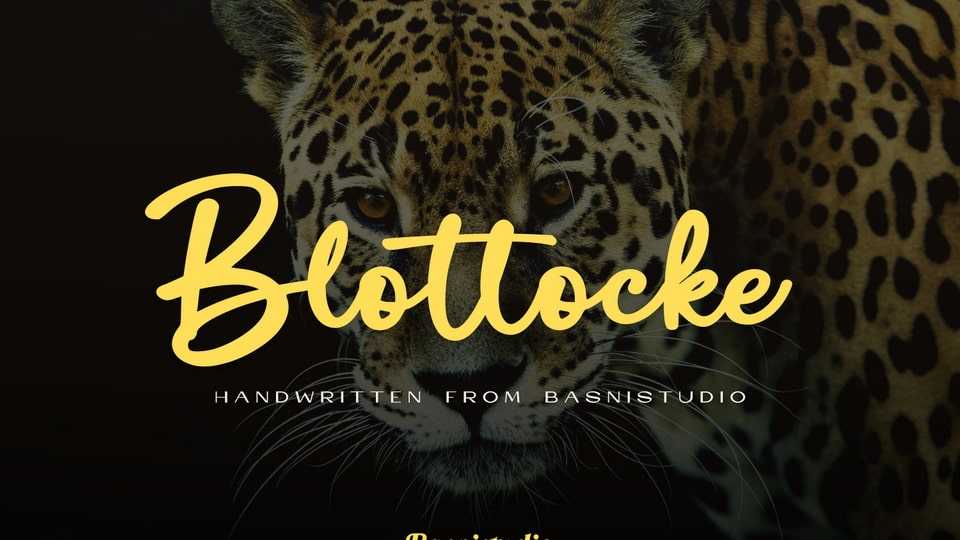
Download Blottocke font, a handwritten typeface that adds a elegant, versatile touch to everything from branding and social media to invitations and packaging.